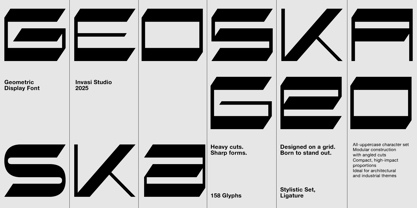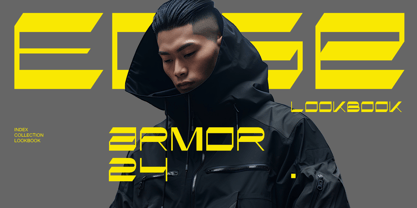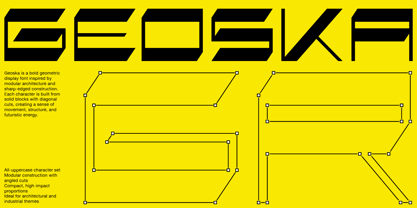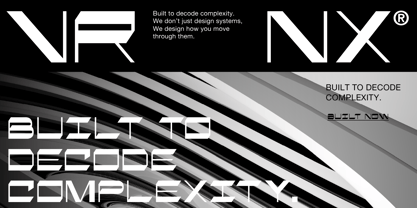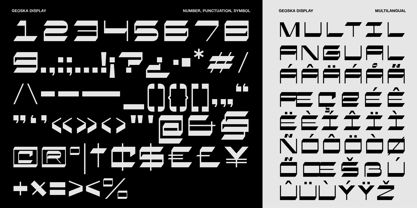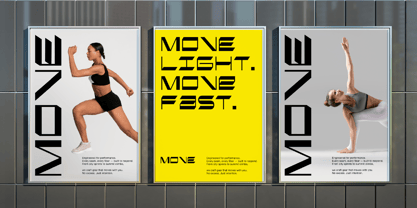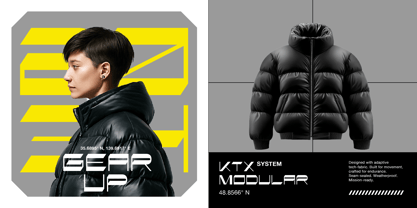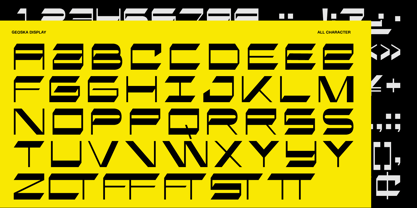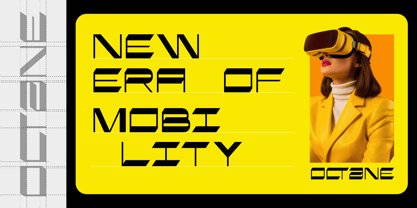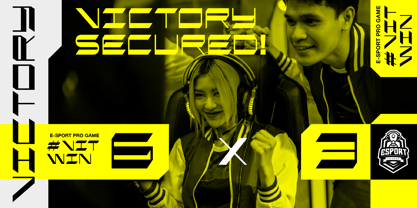
Geoska
von Invasi Studio
Die Schriftfamilie Geoska wurde von Gha Arizal entworfen und von Invasi Studio veröffentlicht. Geoska enthält 1 Stile.
Built from blocks. Designed for boldness.
Geoska is a modular geometric display typeface that channels the energy of brutal architecture and precision engineering. With solid shapes, angular cuts, and high-impact forms, every character feels like it was forged from steel beams and blueprint grids.
Inspired by industrial signage, retrofuturistic displays, and the mechanical rigidity of early digital type, Geoska thrives in compositions that demand structure and strength. This font includes all uppercase A–Z letters, stylized alternates, full punctuation, multilingual support, and high-contrast shapes with wide spacing—delivering a flexible yet visually commanding tool for structured compositions.
Geoska works seamlessly across a wide range of modern design needs—from tech posters and fashion branding to editorial layouts, architectural portfolios, and retro-futuristic zines. Whether you’re building a modular grid system or designing a bold visual identity, Geoska brings clarity, confidence, and geometric flair.
This typeface isn’t just readable—it’s ready to construct your message.